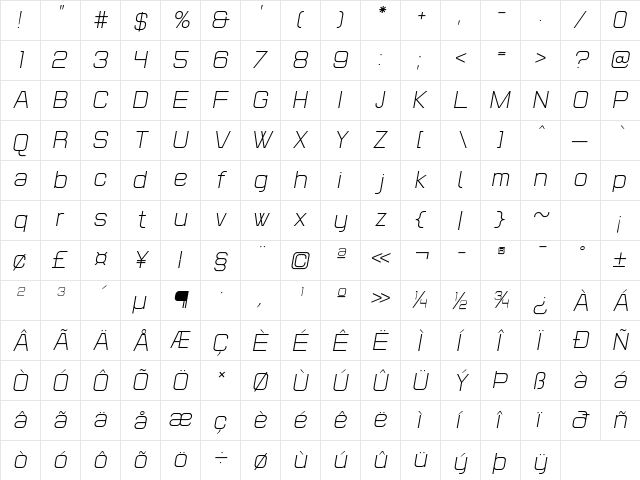
POE Headline Italic
| Foundry | Powerhouse of Entertainment |
| Designer | Daniel Lyons |
Design Context for POE Headline Typeface
POE Headline takes a measured approach to typography — its balanced proportions and neutral character make it a reliable workhorse for both digital and print work. The slanted form adds forward momentum and visual energy.
Pro Tip: Try POE Headline for annotation and caption copy alongside an upright companion — the contrast in angle creates a dynamic but ordered typographic system.